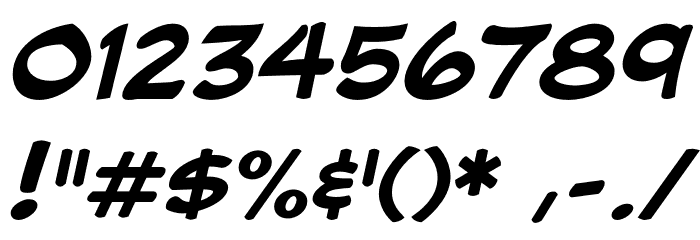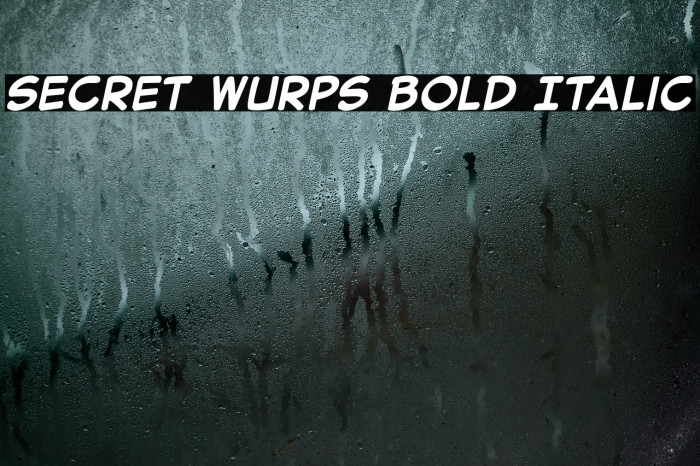
Secret Wurps Bold Italic Font
This font features a bold and italicized style, characterized by its dynamic and playful appearance. The letters are slightly slanted, giving a sense of movement and energy. The strokes are thick and consistent, providing a strong visual impact. The overall design is smooth and rounded, with a friendly and approachable feel. The numbers and special characters maintain the same bold and italicized style, ensuring uniformity across all elements. This font is suitable for projects that require a lively and engaging typeface.
A bold, italicized font with a playful and dynamic style.
- Proposed Projects: Ideal for posters, advertisements, branding, and any project that needs a bold and energetic typeface.